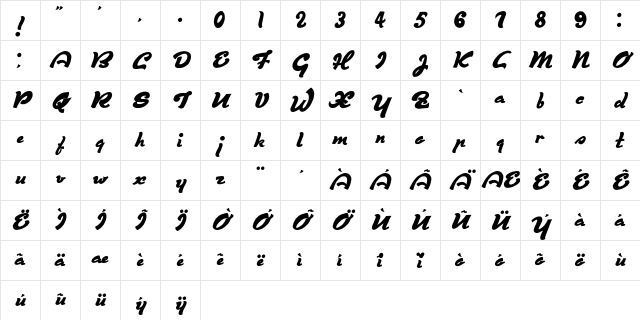
Derniere Script Regular Free Font
Derniere Script Regular
Foundry: Paulo W
Complete Derniere Script Regular glyph index. Displaying only characters natively supported by Derniere Script Regular font.
Design Context for Derniere Script
Derniere Script flows with the natural rhythm of handwritten lettering, making it ideal for designs that call for warmth and personal expression.
Font Pairing: Combine Derniere Script with a simple geometric sans for maximum contrast - the tension between flowing curves and clean structure is a classic typographic pairing.
Pro Tip: Use Derniere Script for short runs of text - names, titles, or taglines. Extended body copy in script faces tires the eye quickly.